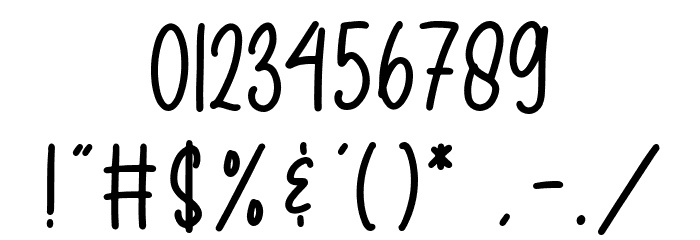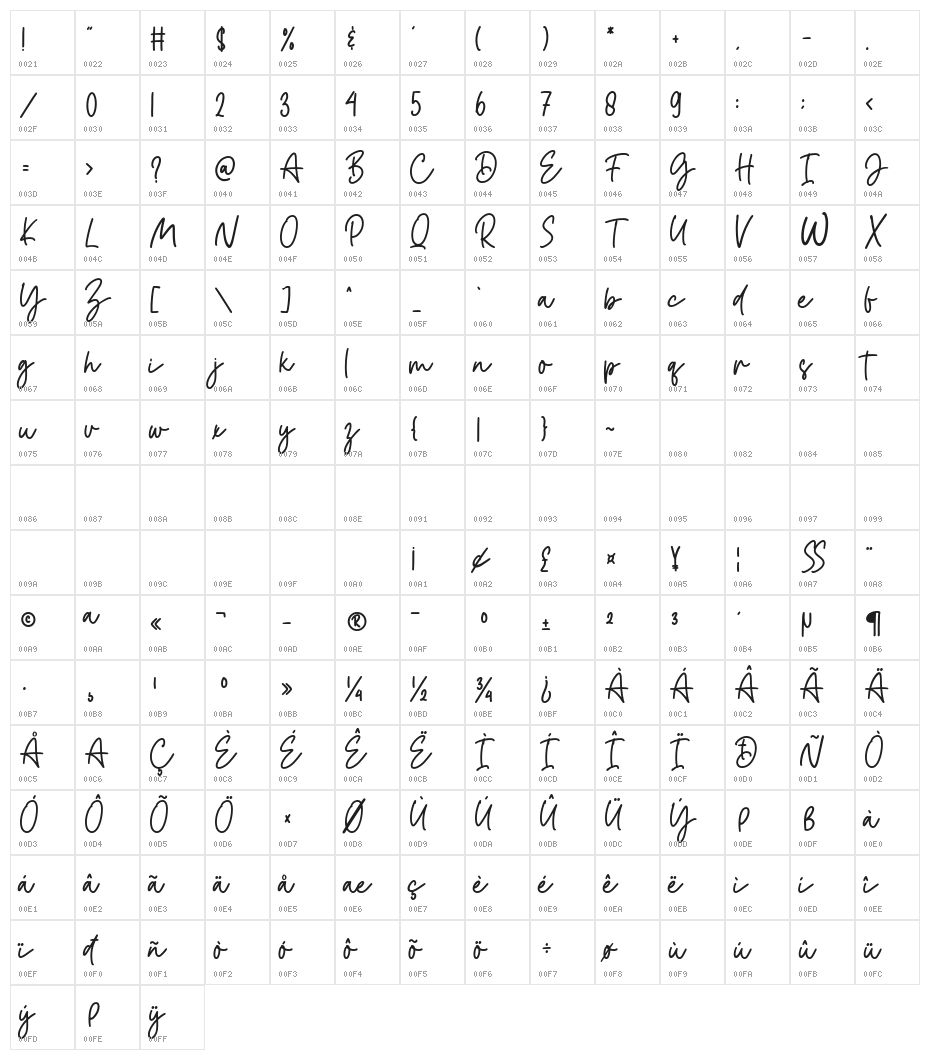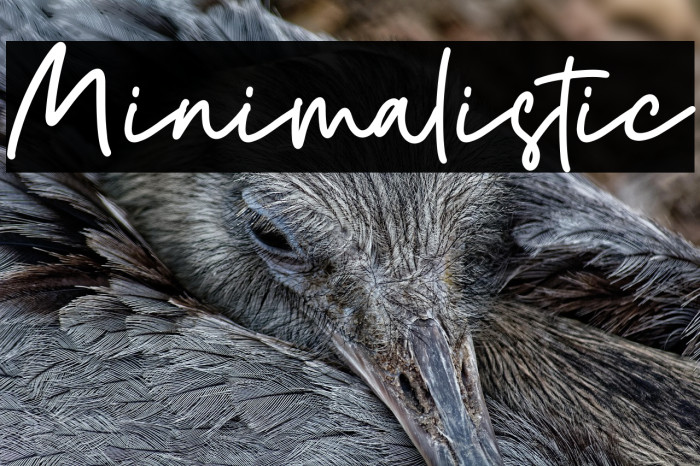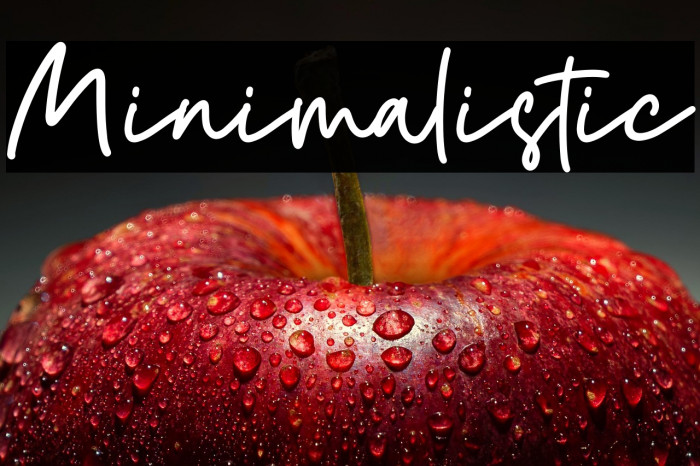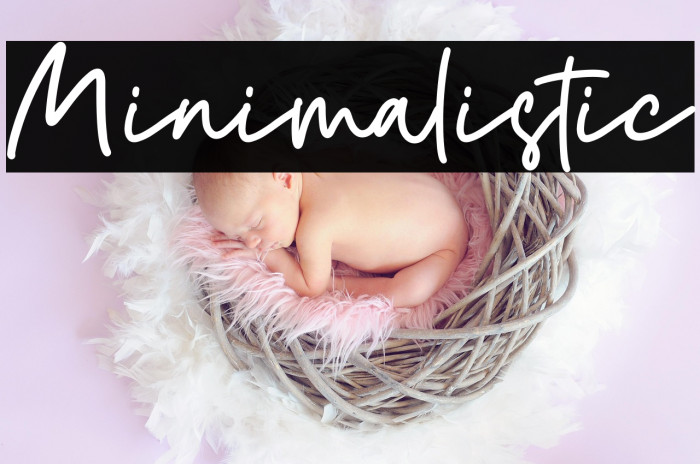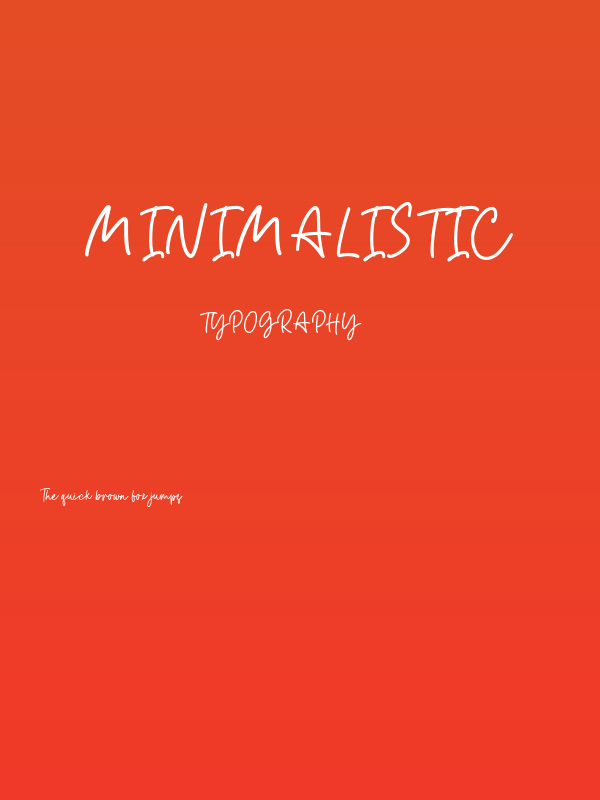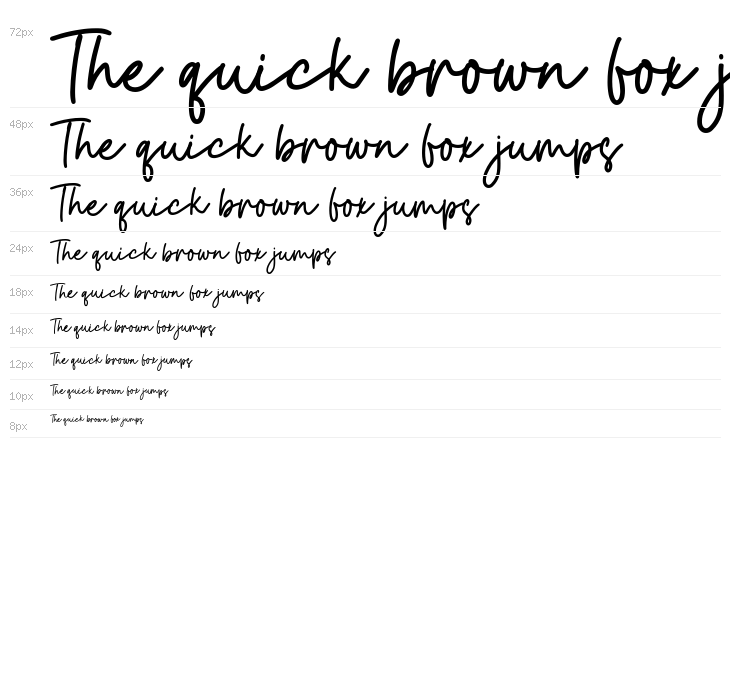
Minimalistic Font
Minimalistic Description
This font exudes a casual and approachable handwritten style, characterized by its fluid and connected strokes. The letters are slightly slanted, giving it a dynamic and lively appearance. The uppercase letters maintain a consistent height, while the lowercase letters exhibit a playful variation in size, enhancing its informal charm. The numerals are clear and legible, matching the overall aesthetic. Special characters are well-integrated, maintaining the font's cohesive look. This font is perfect for projects that require a personal touch, such as invitations, greeting cards, or branding materials that aim to convey warmth and friendliness.